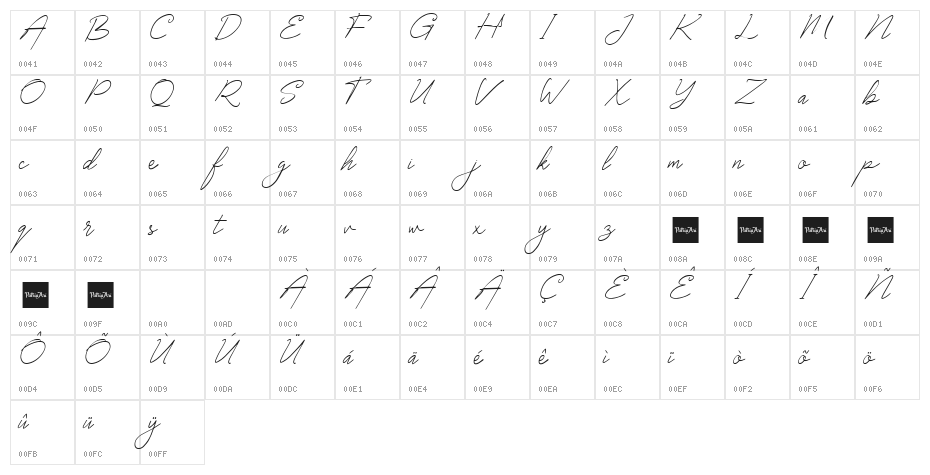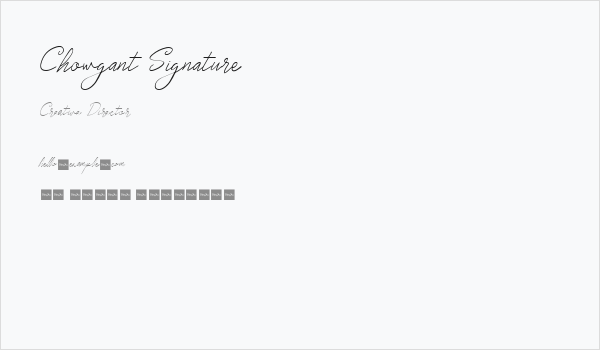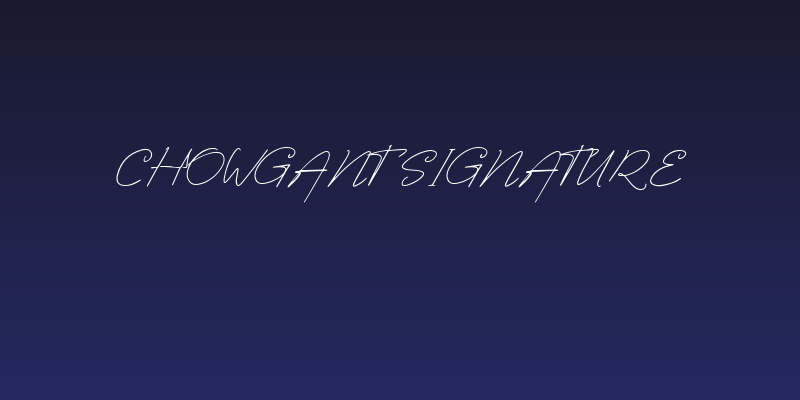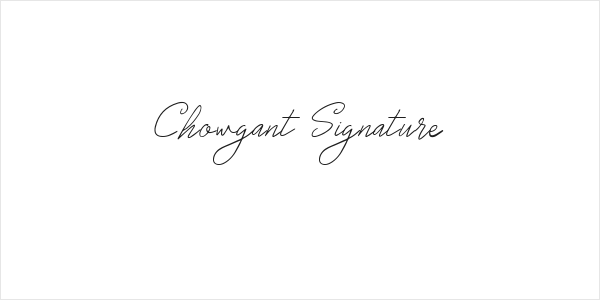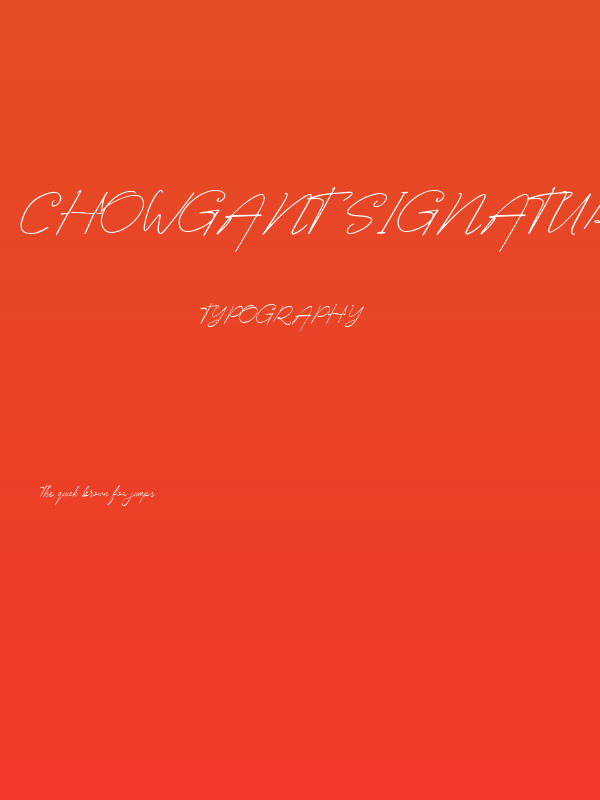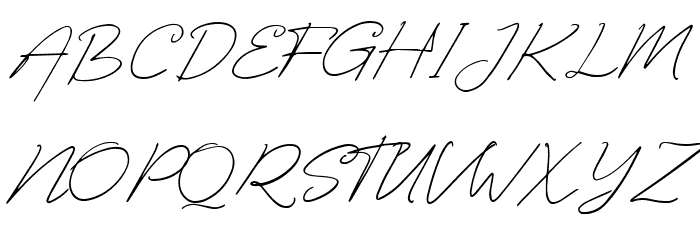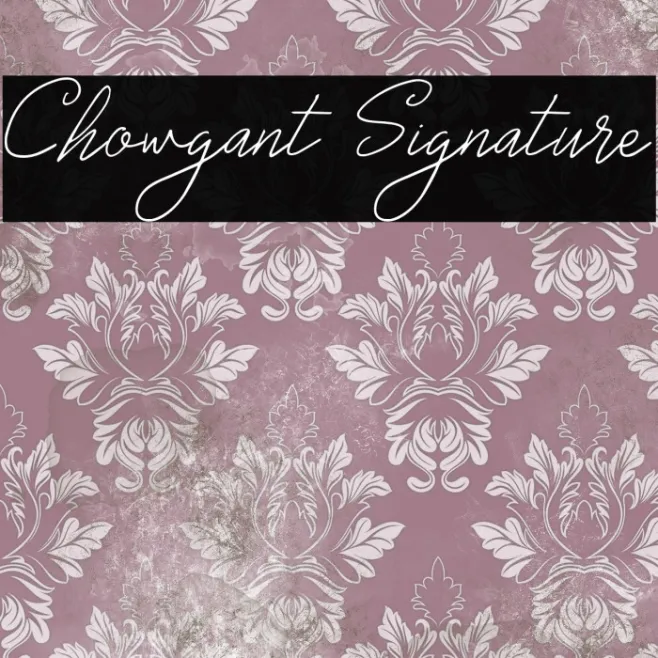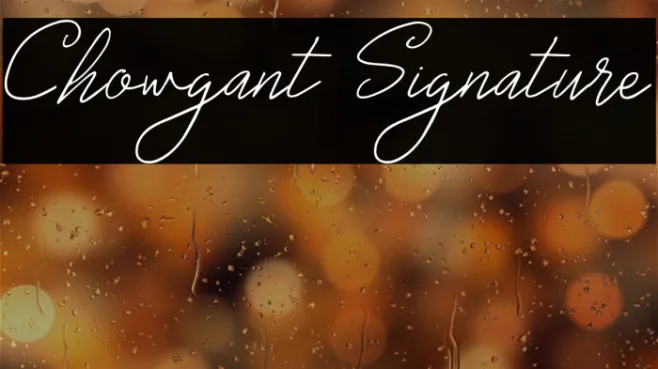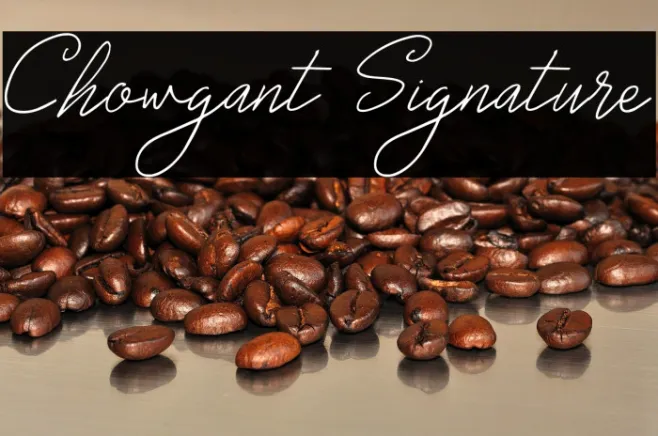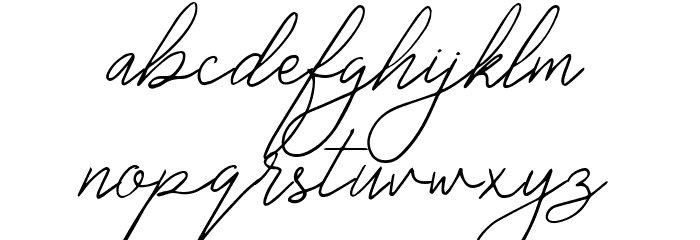
Chowgant Signature Font
Chowgant Signature Description
This font exudes elegance and sophistication with its fluid, cursive style. The letters are gracefully connected, creating a seamless flow that mimics the natural movement of handwriting. Each character is crafted with a delicate touch, featuring thin lines that vary in thickness, adding a sense of dynamism and movement. The uppercase letters are slightly more structured, while the lowercase letters are more freeform, enhancing the font's organic feel. This font is perfect for projects that require a personal, human touch, such as invitations, greeting cards, or branding materials that aim to convey elegance and refinement.
| Use Case | Invitations, Branding, Greeting cards |
| Proposed Projects | Ideal for wedding invitations, personal branding, elegant logos, and greeting cards. |